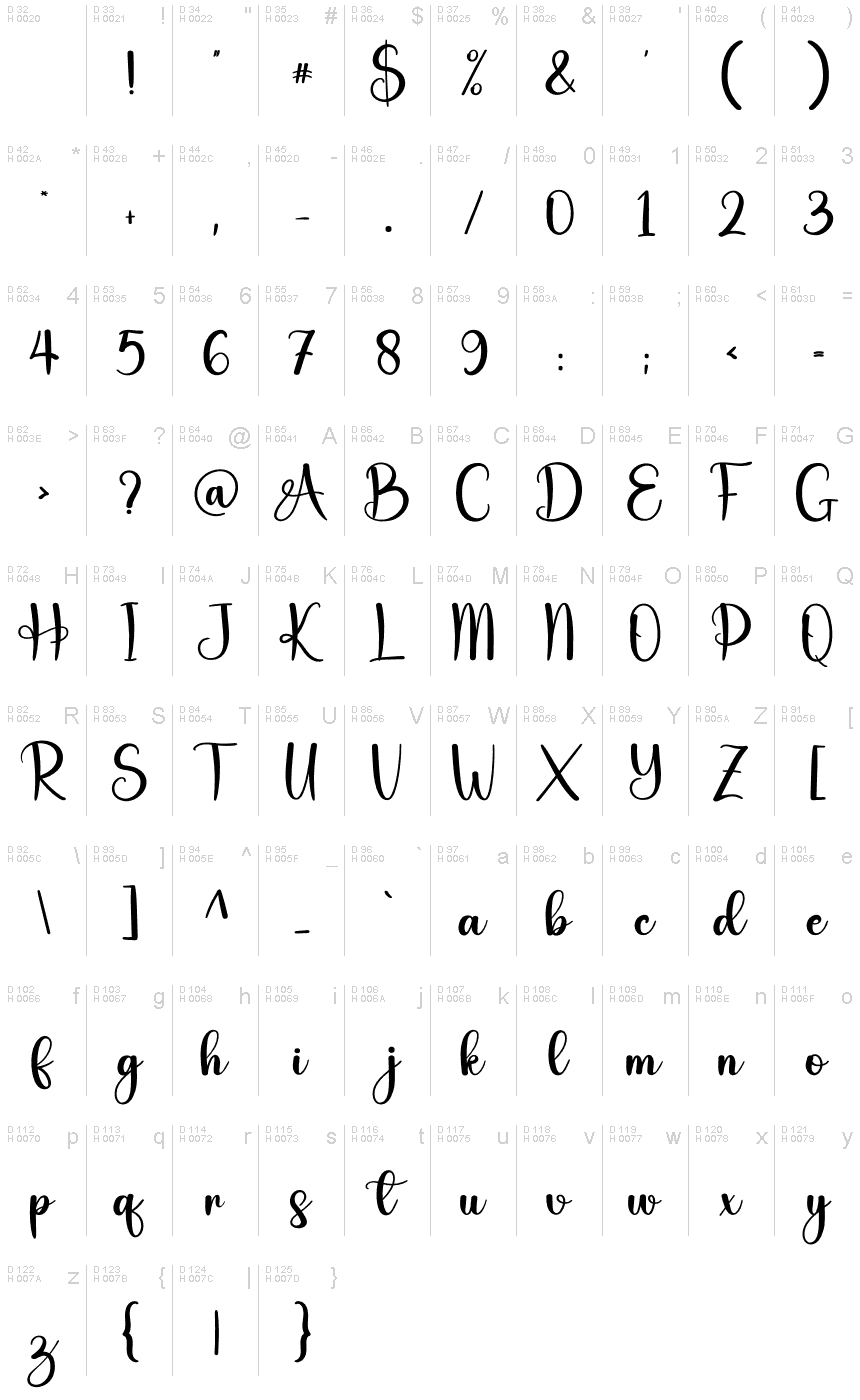
Day Blussful
Day Blussful, designed by Harlek Studio, is a charming and whimsical handwritten font that adds a touch of playfulness to any project.
With its cute and lovable style, this font is perfect for children's books and illustrations, bringing characters to life with its joyful strokes. Its versatility also makes it suitable for greeting cards, scrapbooking, and craft projects, adding a delightful flair to your creations. Whether you're designing invitations for a baby shower or creating personalized stationery, Day Blussful will infuse your designs with an enchanting sweetness that will captivate hearts.